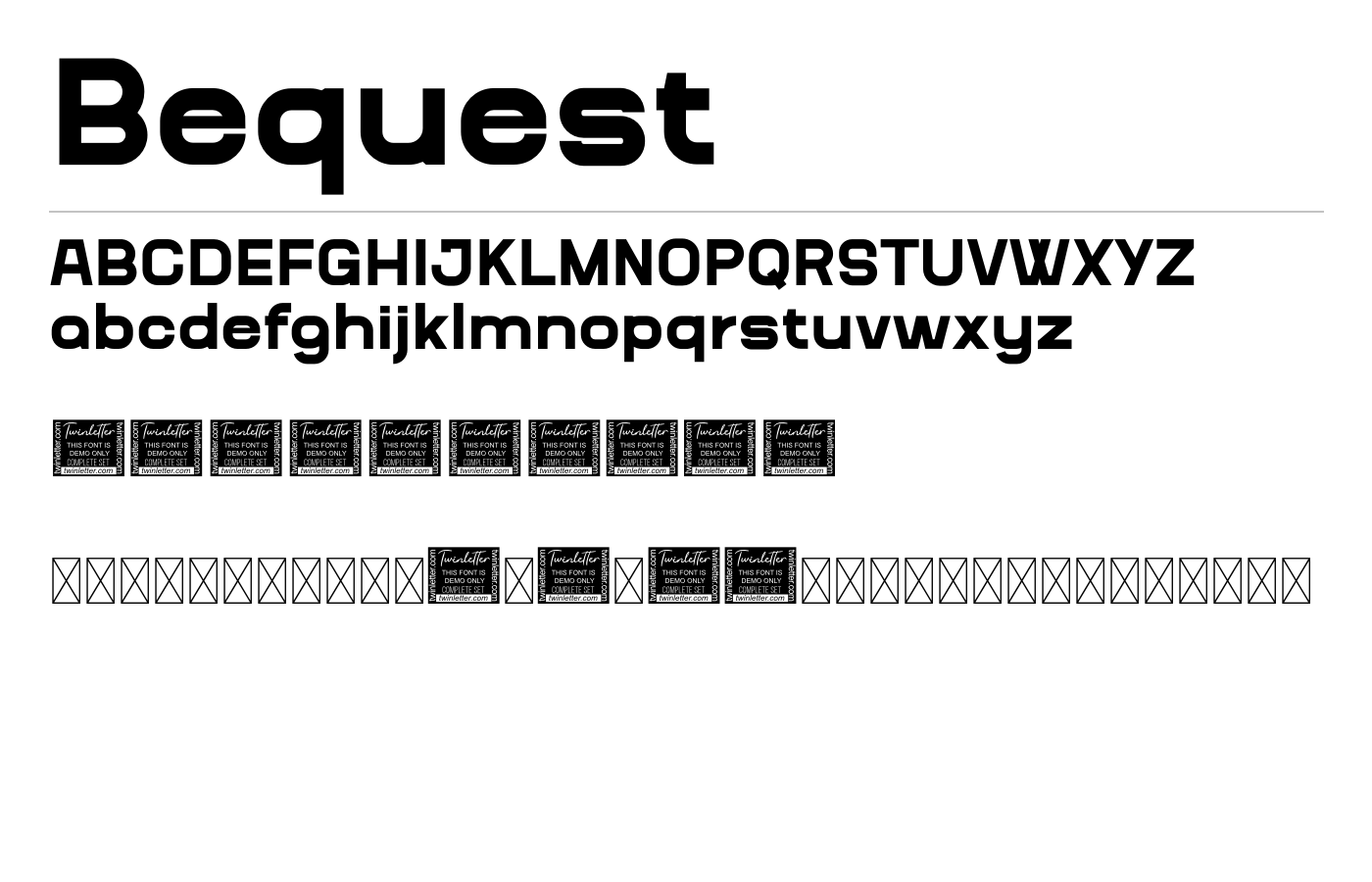
Bequest is a bold, geometric sans serif font with a modern and robust appearance. Its clean, slightly condensed letterforms and high x-height make it highly legible, while its unique shapes add a distinctive, contemporary edge perfect for branding, headlines, and editorial design that demands strength and clarity. This font works especially well in projects seeking a confident yet approachable style.
Bequest Font
About Bequest Font